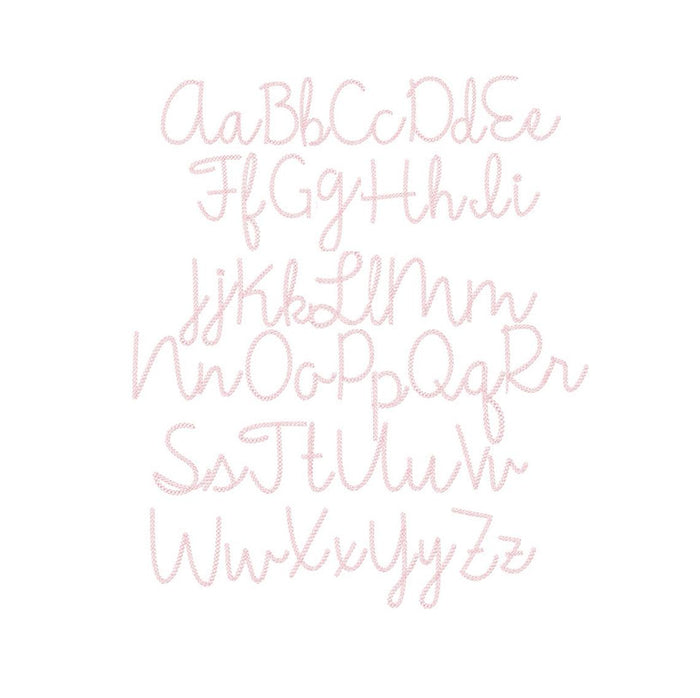
Gracie Chain Stitch Embroidery Font Package
Unlock your creativity with the Gracie Chain Stitch Embroidery Font Package. This versatile package features four sizes of a stunning chain stitched vintage-style font designed specifically for machine embroidery. Each size mimics the appearance of hand-stitched embroidery, adding a personal touch to your projects.
The package includes uppercase and lowercase letters—52 in total—ensuring you can create unique monograms effortlessly. All sizes fit comfortably within a 4x4 hoop or smaller, making it ideal for various projects.